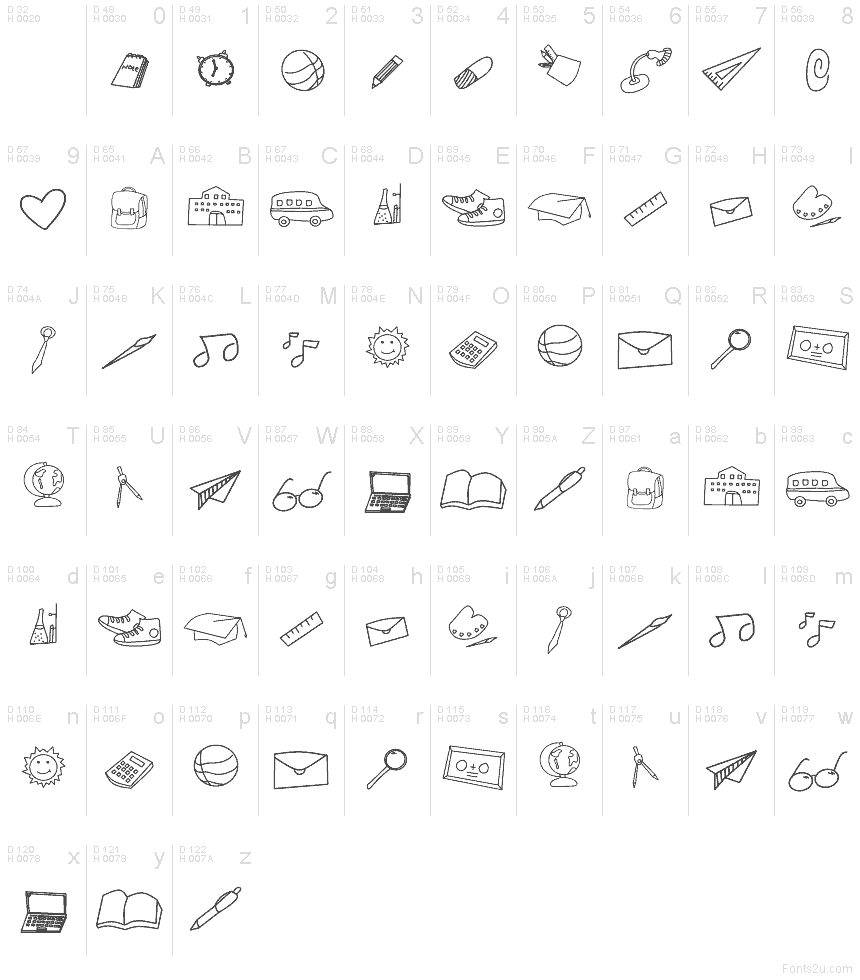
Back to School
Back to School font by Edy Wiyono is a cartoon dingbat font characterized by its amusing illustrative quality. It mixes alphabets, numbers, and different characters that look cute, decorative, and childish. All visuals have rough uneven lines and suit casual applications.
Use this free typeface in an assortment of use cases such as books for children, greeting cards, stationery designs, school supplies packaging, social media posts, t-shirts printing projects, websites banners or hero images, headline titles for flyers/posters/brochures.